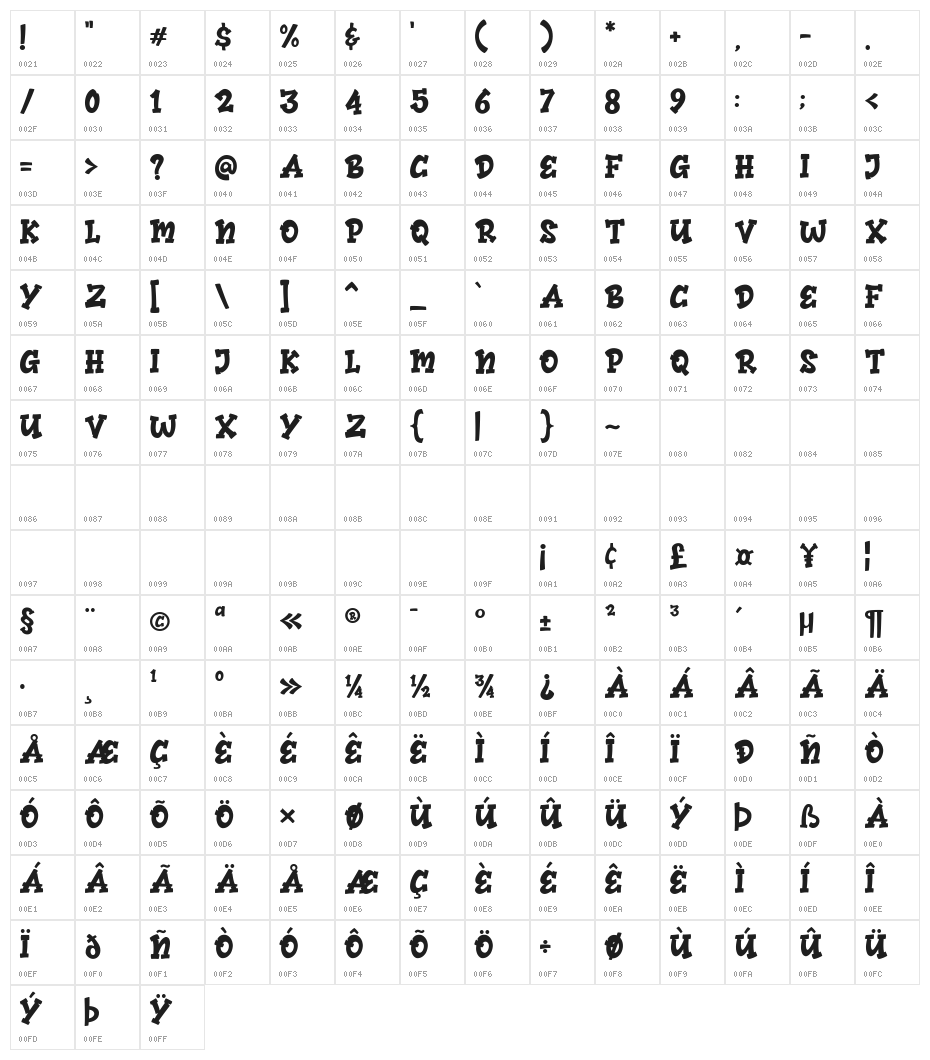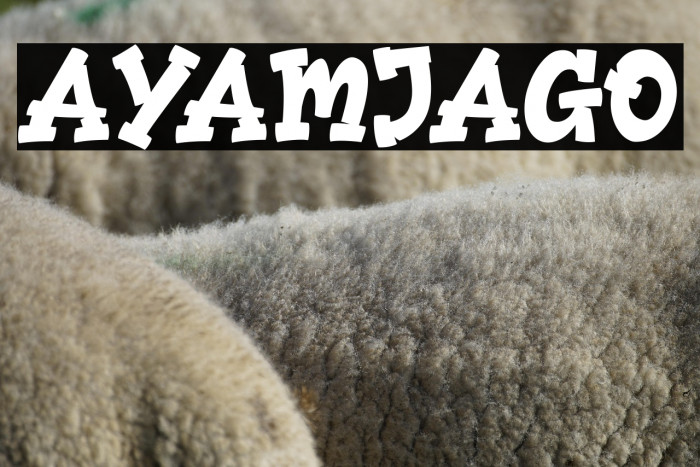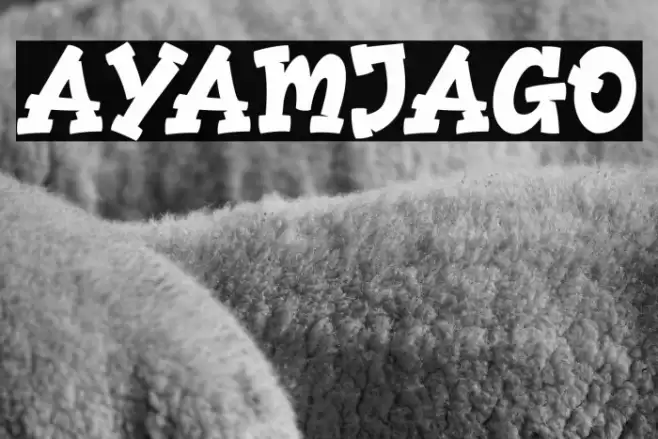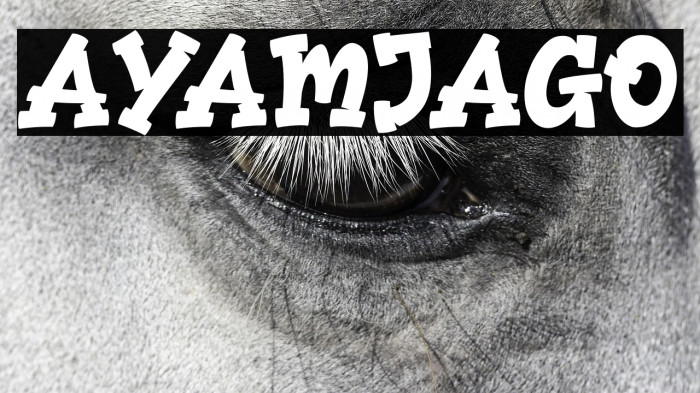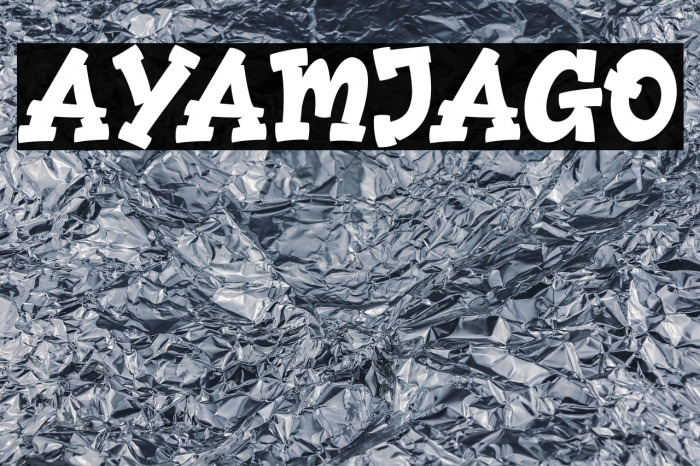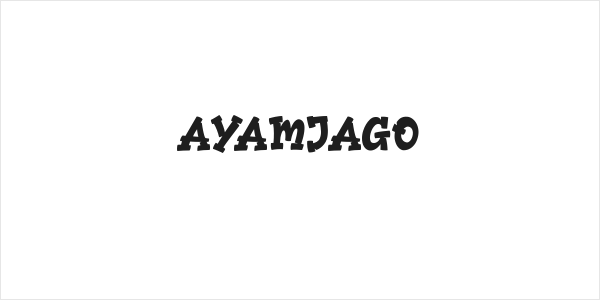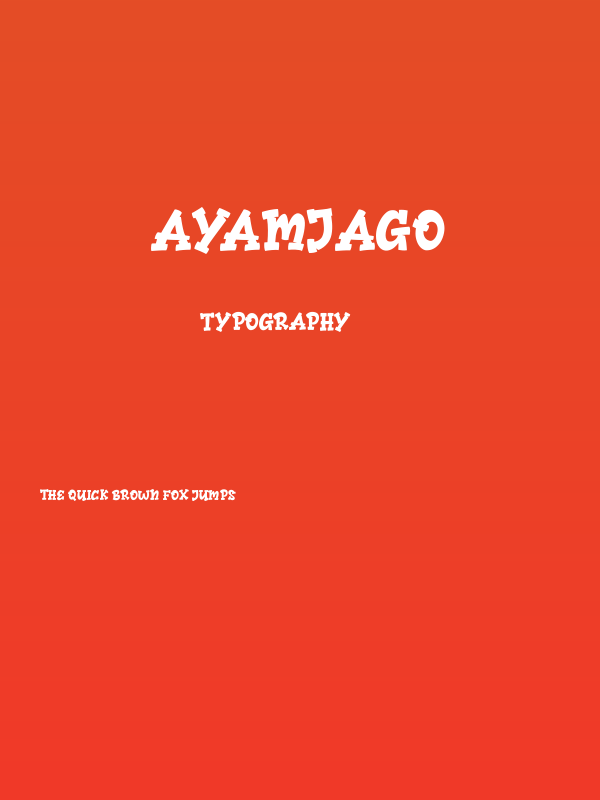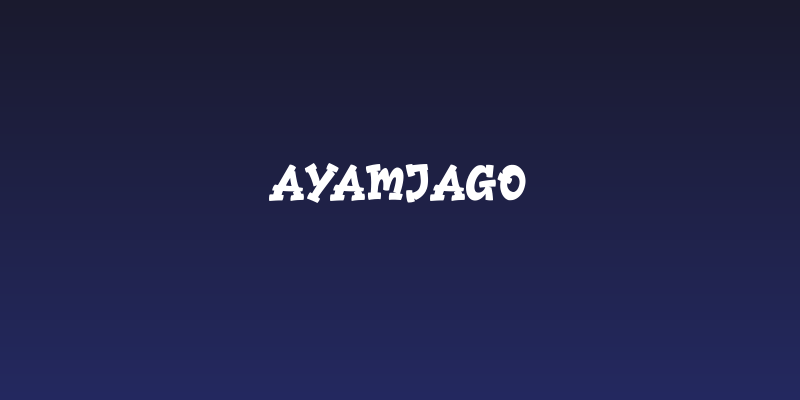
AyamJago Font
AyamJago Description
This font features a bold and playful design with a strong presence. The characters are thick and slightly irregular, giving them a hand-drawn, whimsical appearance. The uppercase and lowercase letters maintain a consistent style, with rounded edges and a slight tilt that adds to the dynamic feel. The numbers and special characters follow the same playful aesthetic, making the font suitable for creative and informal applications. The overall look is both eye-catching and approachable, ideal for projects that require a fun and engaging typeface.
| Proposed Projects | Ideal for children's books, playful branding, posters, and creative invitations. |